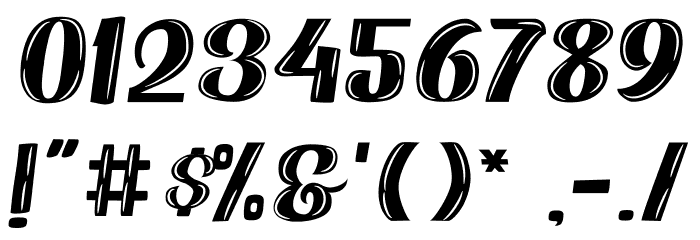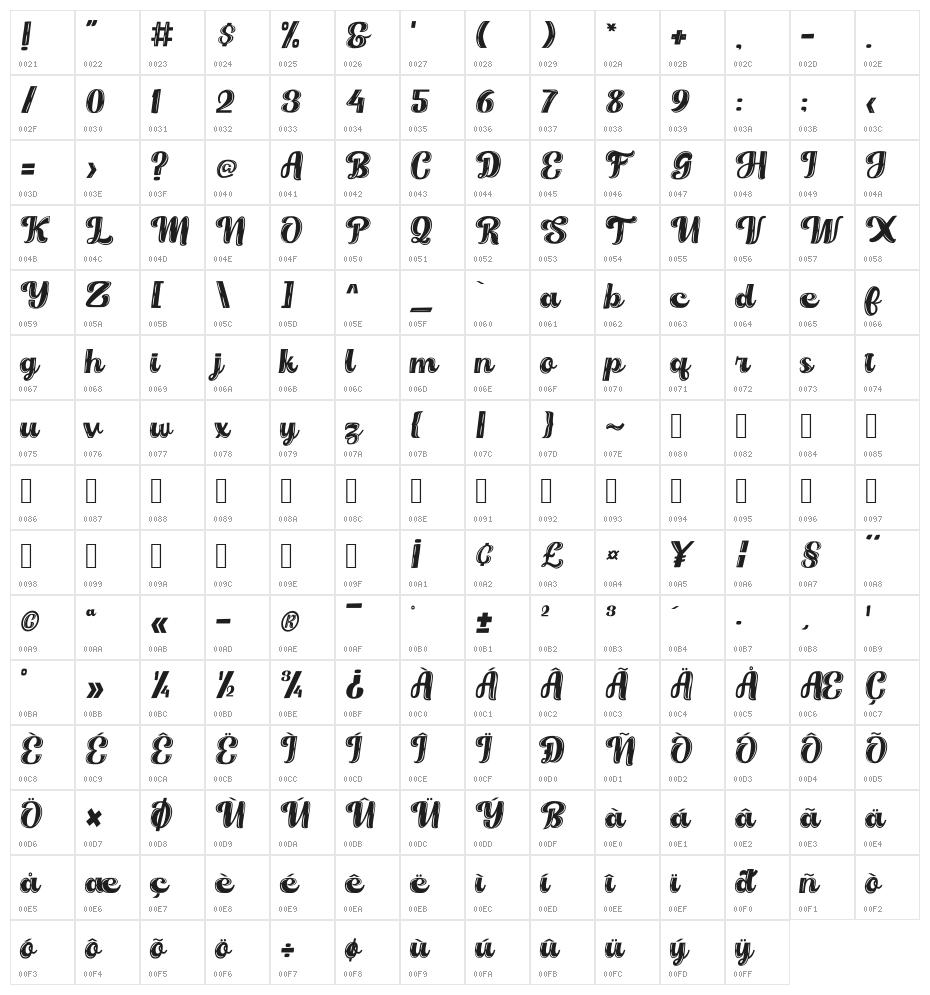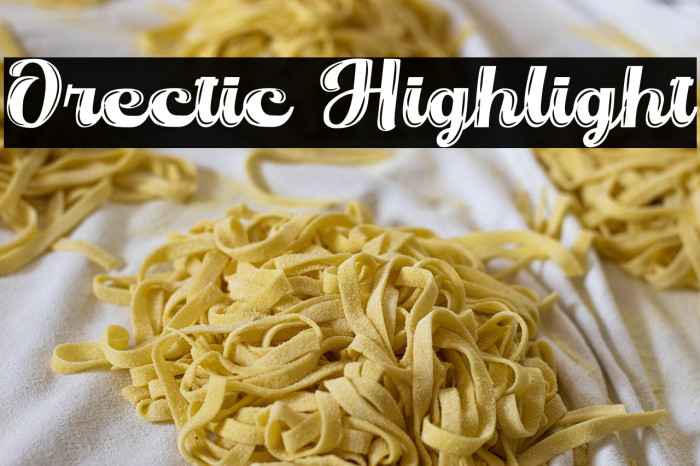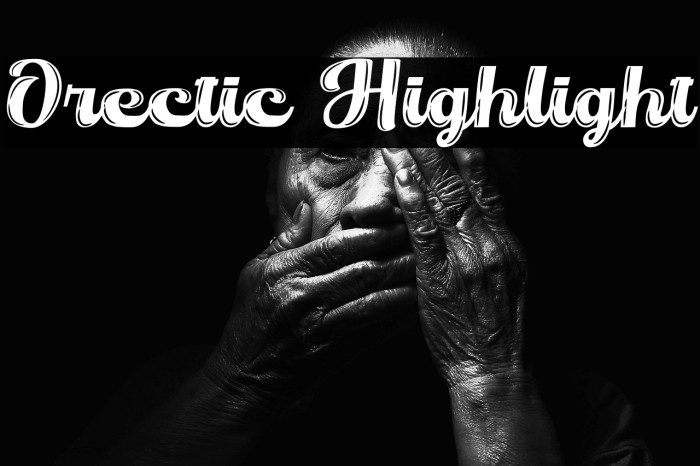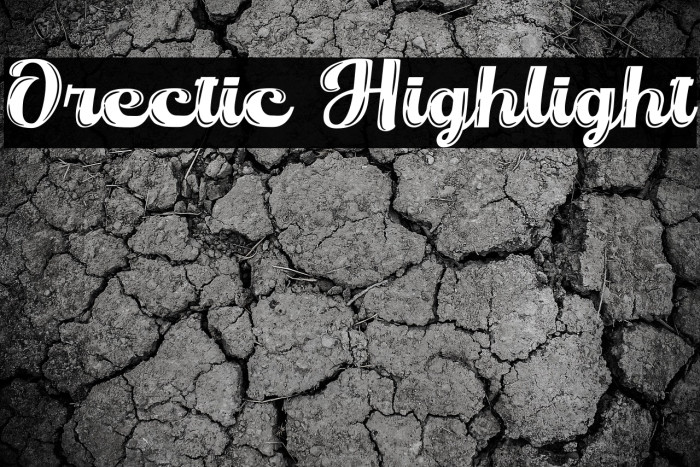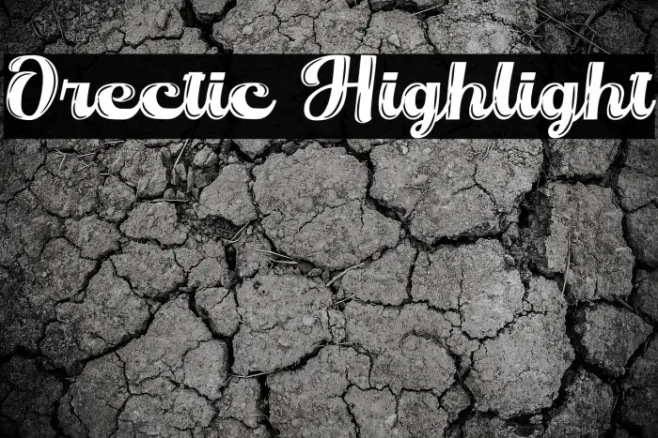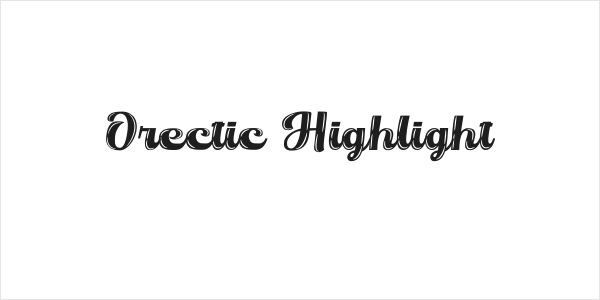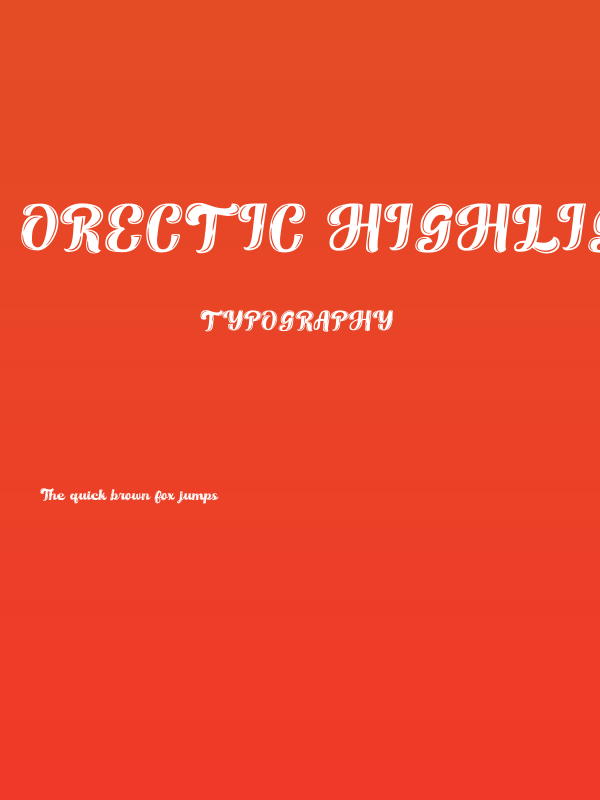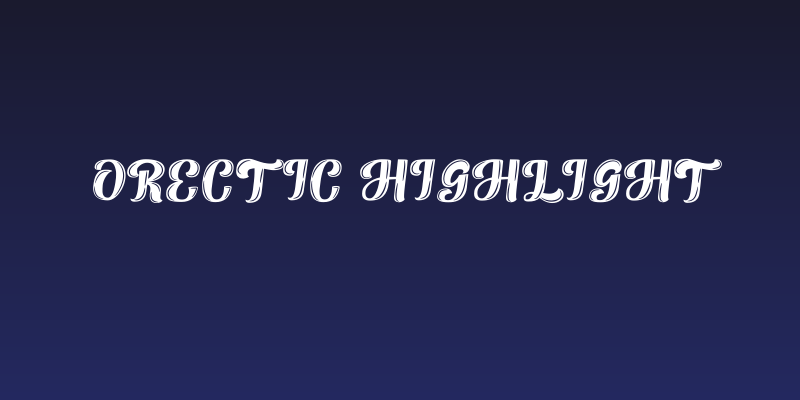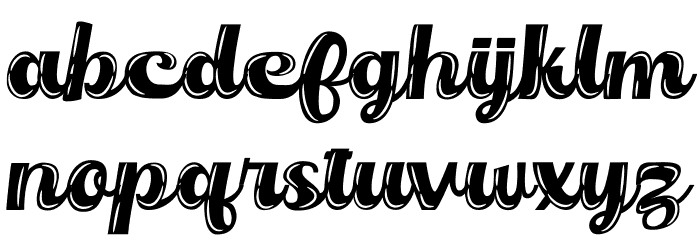
Orectic Highlight Font
Orectic Highlight Description
This font features a bold, decorative style with a distinct shadow effect that gives each character a three-dimensional appearance. The letters are connected in a cursive manner, adding a sense of fluidity and movement. The uppercase and lowercase letters maintain a consistent style, with elegant curves and flourishes that enhance its decorative appeal. The numbers and special characters are designed to match the overall aesthetic, ensuring a cohesive look across all text elements. This font's unique style makes it ideal for creating eye-catching headlines and titles.